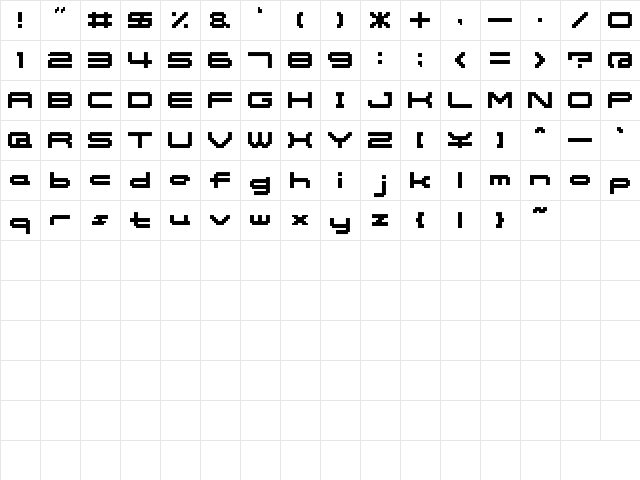
somybmp06_12 Regular
Design Context for somybmp06_12 Typeface
somybmp06_12 takes a measured approach to typography — its balanced proportions and neutral character make it a reliable workhorse for both digital and print work.
Pro Tip: Use somybmp06_12 in both headline and body roles to test its range before committing to a single application.